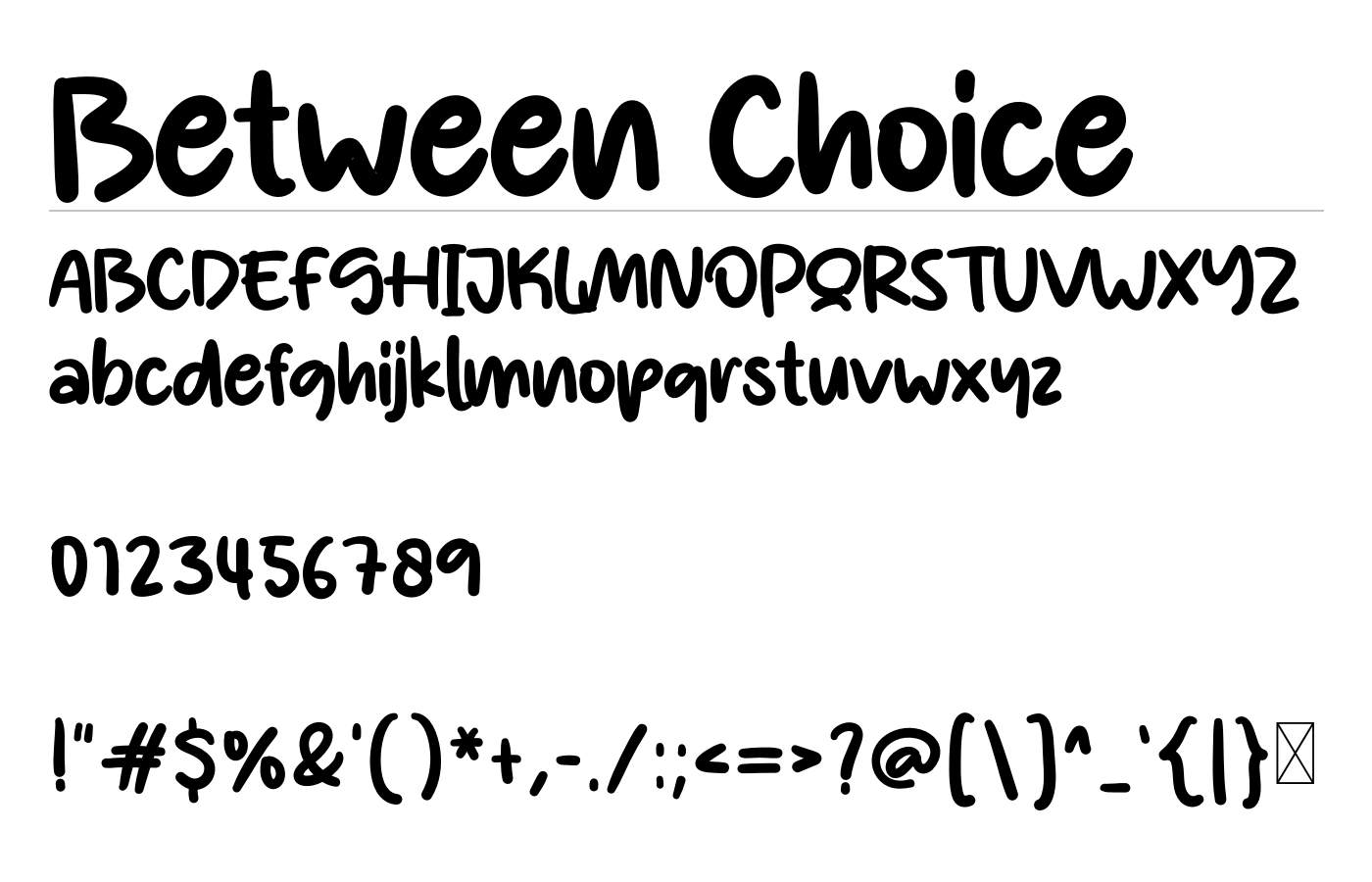
Between Choice is a playful and casual handwritten sans serif font with rounded, friendly letterforms and moderate weight. Its organic, bouncy shapes and informal style make it perfect for fun, approachable branding, children's products, or creative projects seeking a warm and personal touch. This font works well in headlines, logos, and packaging where a lively and inviting personality is desired.
Between Choice Font